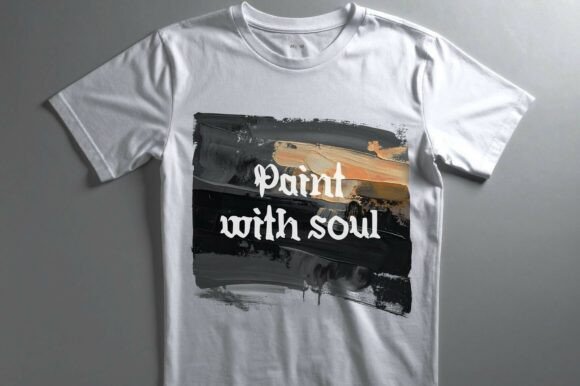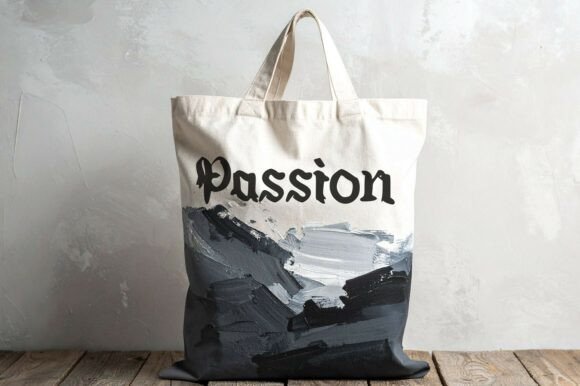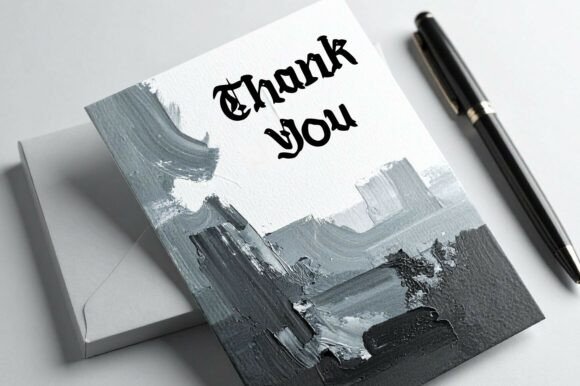
Introduction to Bendahara Font
As a designer, there’s nothing quite like the rush of discovering a new, high-quality font that elevates your creative project to the next level. For me, that moment came when I stumbled upon the Bendahara Font, a mesmerizing gothic script typeface that has been a game-changer in my design workflow ever since.
With its timeless elegance and understated prestige, the Bendahara Font is a design resource that’s hard to resist. Its exquisite twists and precise serifs make it a perfect fit for projects that require a touch of classical luxury, from branding and event invitations to attention-grabbing posters and more. Whether you’re working on a high-end branding project or a simple design concept, the Bendahara Font is sure to leave a lasting impression.
Key Features of Bendahara Font
- High-quality design resource suitable for various creative projects, including graphic design, digital art, and typography.
- Unique characteristics: elegant, modern, and sophisticated design aesthetic, making it perfect for luxury and high-end branding projects.
Honest Review: Bendahara Font
As a designer, I’m always on the lookout for high-quality design resources to elevate my creative projects. The Bendahara Font is one such resource that caught my attention.
- ✨ Unique and elegant design aesthetic that adds a touch of sophistication to any project.
- ✨ High-quality font with crisp and clear characters, making it perfect for digital and print designs.
- ✨ Transparent background, allowing for seamless integration with any design element.
- ⚠️ Limited character set, which may not be ideal for longer texts or extensive use.
Overall, I’m impressed with the Bendahara Font’s unique design and high quality. While it may have some limitations, it’s still a great addition to any designer’s toolkit. If you’re looking for a free design resource to enhance your creative projects, I’d definitely recommend checking out the Bendahara Font.
The Bendahara Font is a versatile design resource perfect for any creative project. This high-quality font can be used in a variety of applications, from branding and marketing materials to digital artwork and print designs.
The Bendahara Font is ideal for use in logos, business cards, brochures, and other marketing materials. Its high-quality design and transparent background make it perfect for use in digital artwork and print designs.